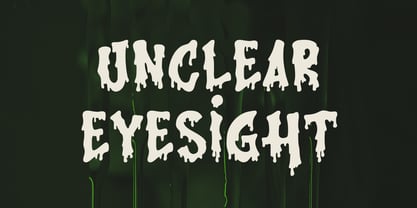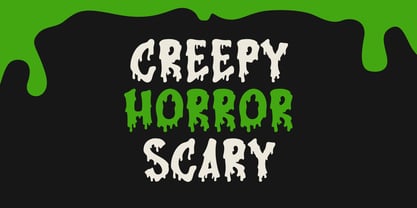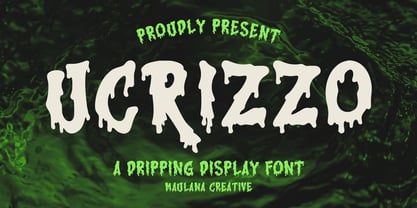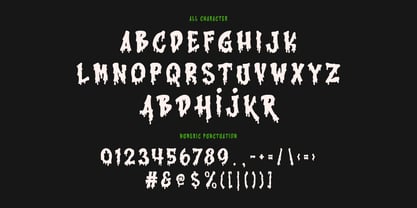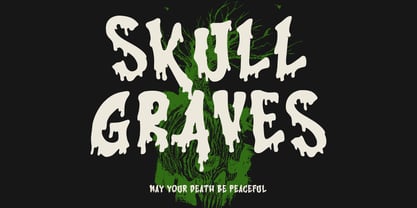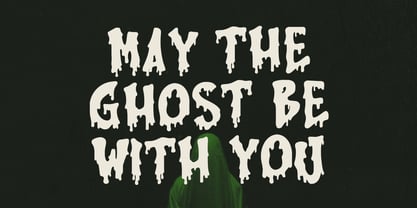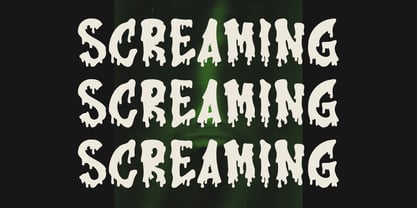
MC Ucrizzo
by Maulana Creative
The MC Ucrizzo Font Family was designed by Gilang Maulana and published by Maulana Creative. MC Ucrizzo contains 1 styles. More about this family
Ucrizzo is a brush horror style display font. Ucrizzo font support multilingual more than 100+ language. This font is good for logo design, Social media, Movie Titles, Books Titles, a short text even a long text letter and good for your secondary text font with sans or serif. Make a stunning work with Ucrizzo font.
Designers: Gilang Maulana
Current Foundry: Maulana Creative